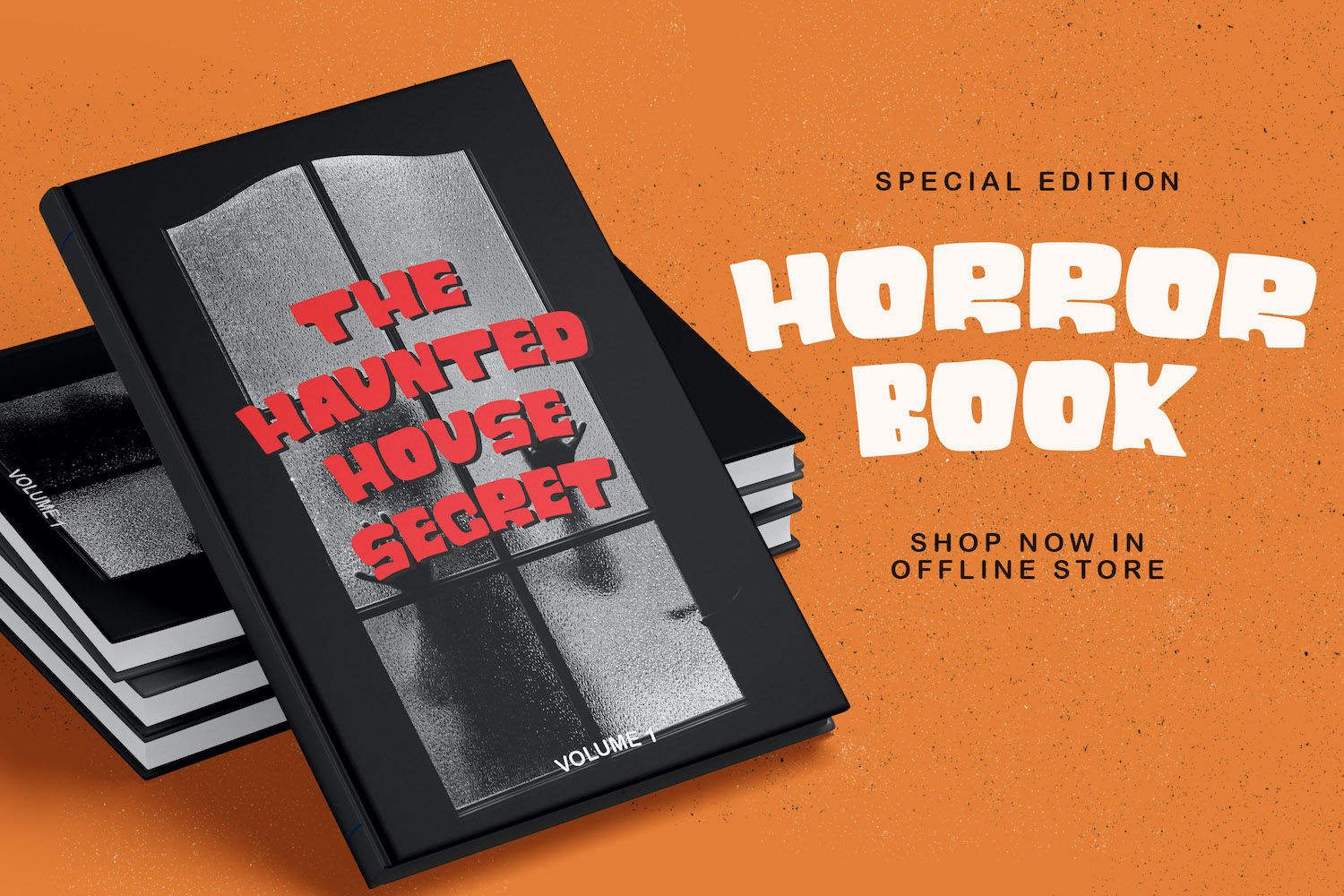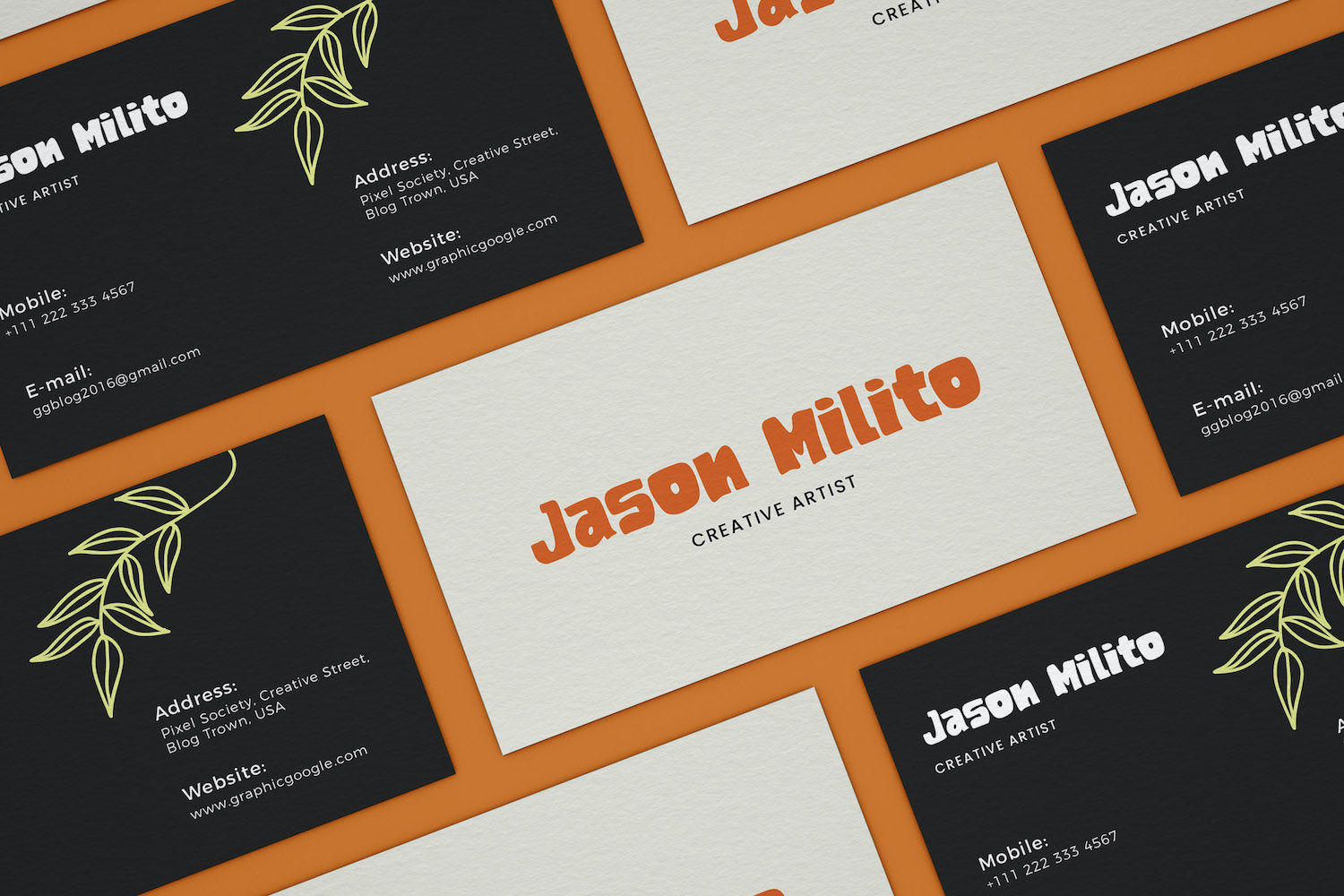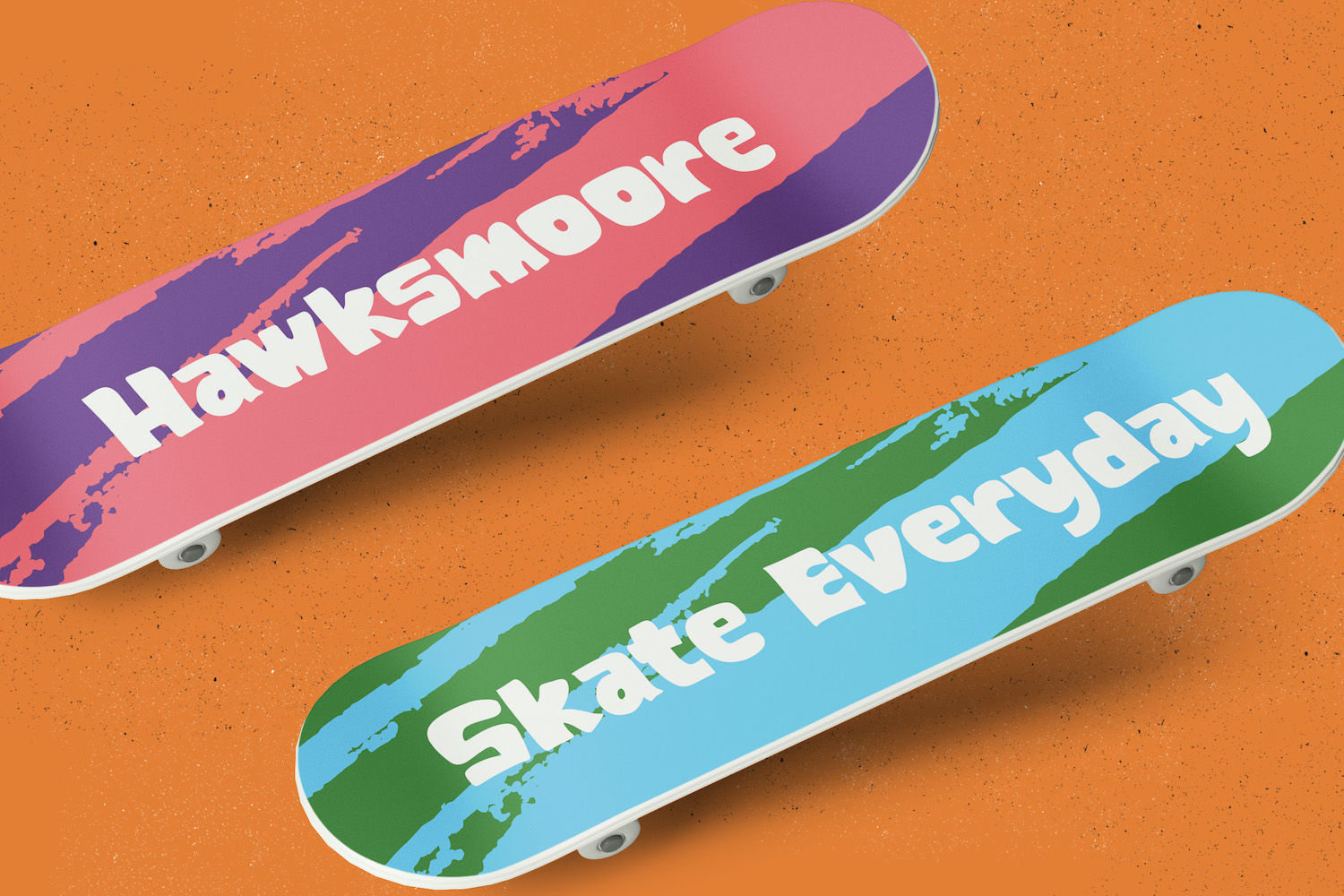
Roman Shine is a bold, rounded sans-serif display typeface built for one job: making your headline impossible to ignore. With its chunky curves, quirky proportions, and slightly groovy rhythm, it delivers an instant retro-pop energy that reads loud and friendly—perfect when you need visual impact fast.
It shines in logo design, posters, product packaging, social media graphics, thumbnails, event flyers, and merch—anywhere a short phrase has to carry the whole mood. Roman Shine also works beautifully for book or album titles, café/food branding, streetwear labels, skate or youth-oriented visuals, playful horror themes, and campaign key visuals that rely on a strong, recognizable silhouette.
Best suited for: bold brand marks, headline systems, sticker-style typography, punchy quotes, poster titles, and packaging names.
Better to avoid: long paragraphs, small UI text, dense editorial layouts, formal corporate decks, luxury branding, and any situation where subtlety or high readability at tiny sizes matters.
Why it works: the heavy weight, soft corners, and compact counters create a thick “stamped” presence that holds up well with outlines, shadows, and texture—giving you a confident, poster-ready look without extra styling.
For practical use, keep it in display sizes (roughly 24–28 pt and up), add a touch of tracking for cleaner spacing in tight words, and give multi-line titles generous line-height so the shapes can breathe. Pair it with a clean, neutral sans (for body copy and details) to keep hierarchy crisp, and use simple backgrounds when readability is critical.